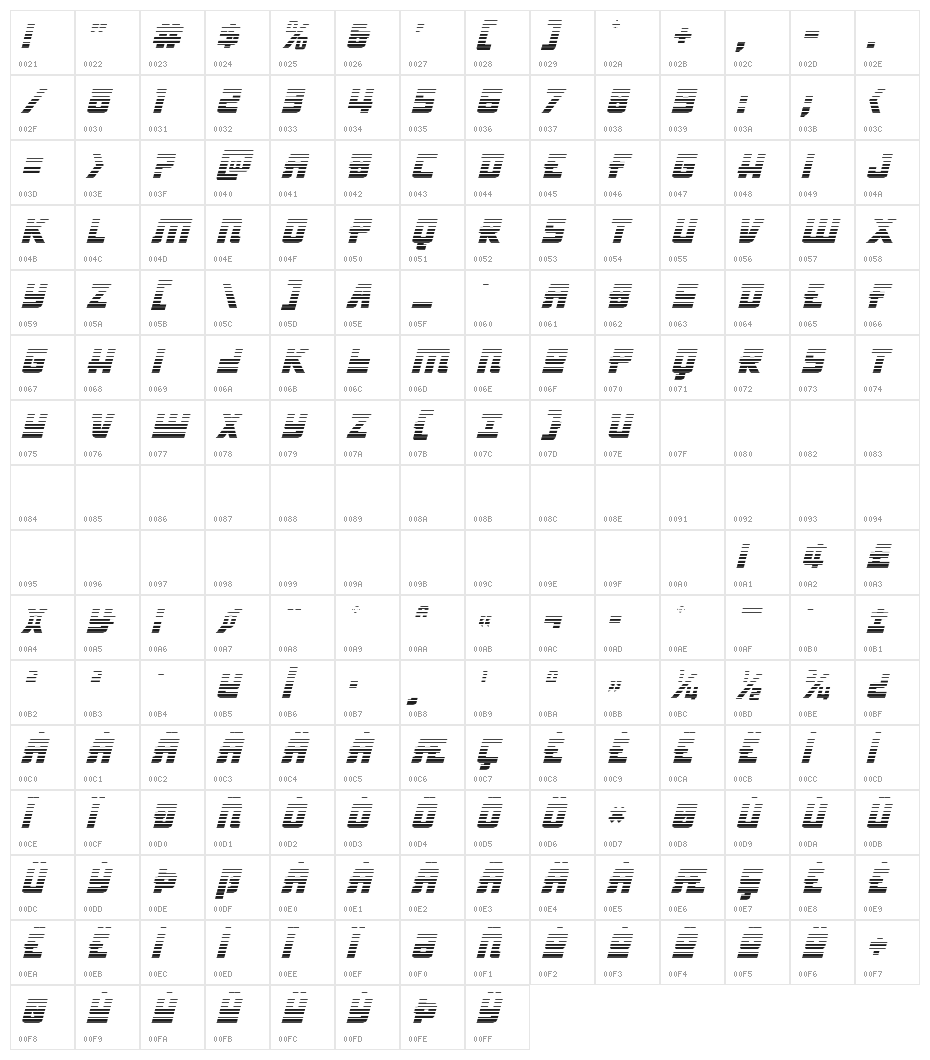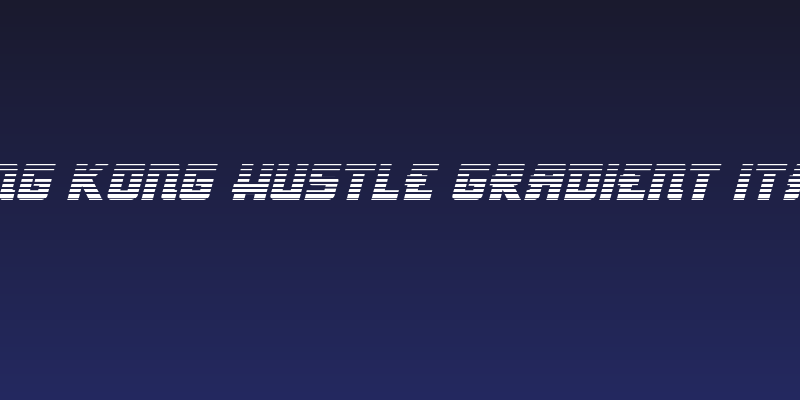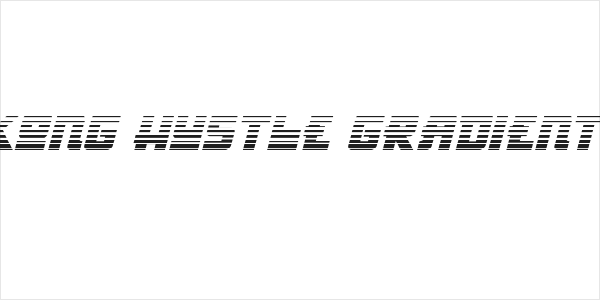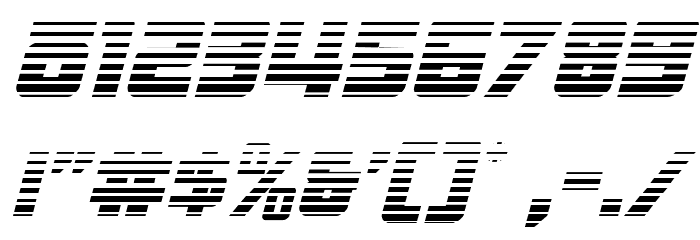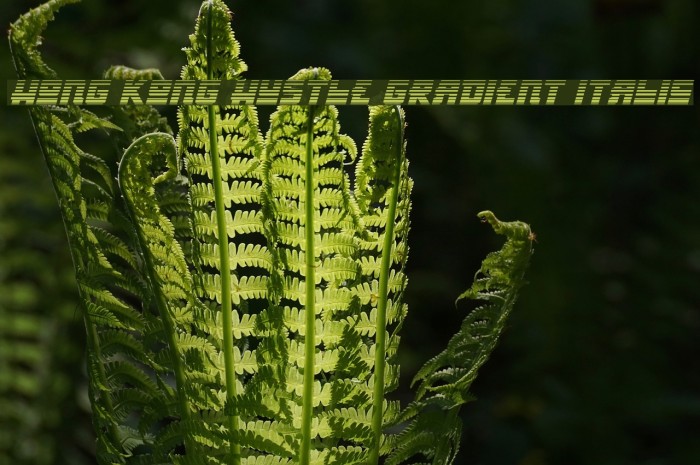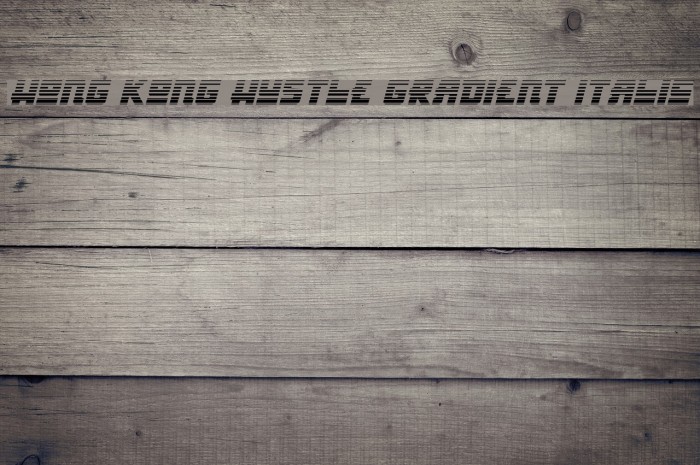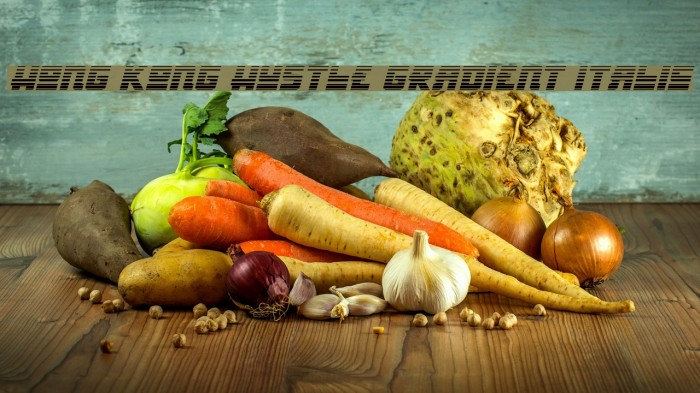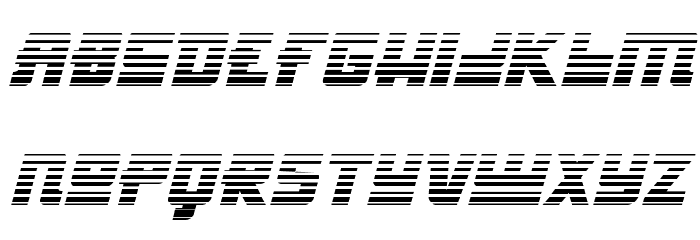
Hong Kong Hustle Gradient Italic Font
Hong Kong Hustle Gradient Italic Description
This font features a bold, futuristic design with a distinctive gradient effect that gives it a dynamic and energetic appearance. The italicized style adds a sense of motion and speed, making it ideal for projects that require a modern and edgy look. The characters are constructed with horizontal lines that create a striped pattern, enhancing the visual impact. This unique style is perfect for capturing attention and conveying a sense of innovation and forward-thinking. The font maintains a consistent weight throughout, ensuring readability while still delivering a striking visual presence.
| Proposed Projects | Ideal for tech-related branding, futuristic posters, video game titles, and dynamic advertising campaigns. |